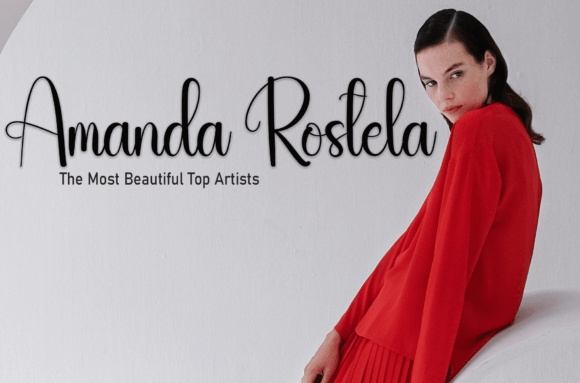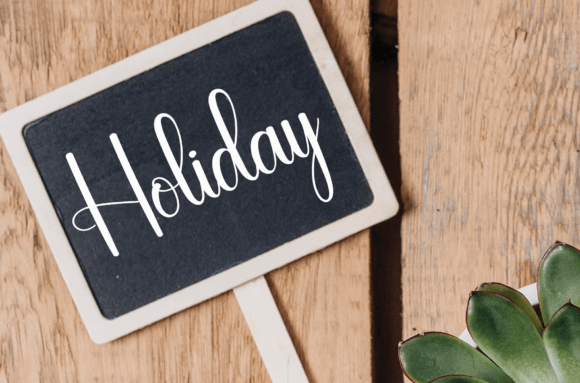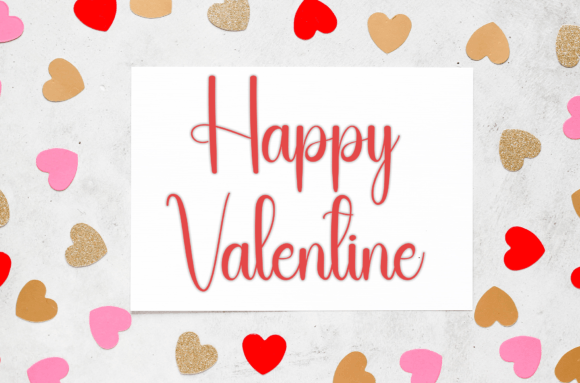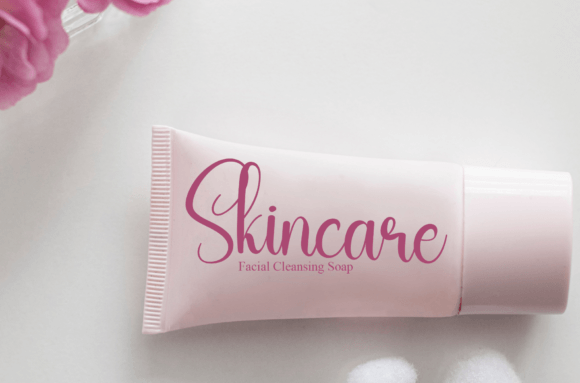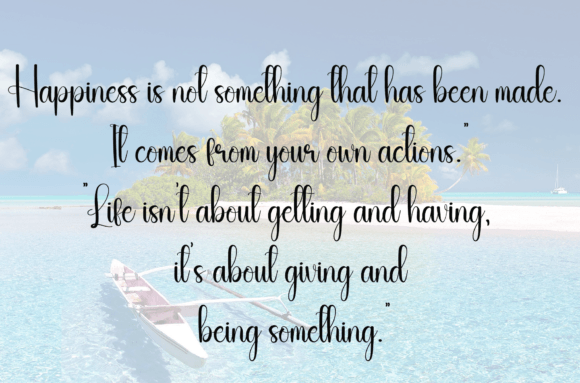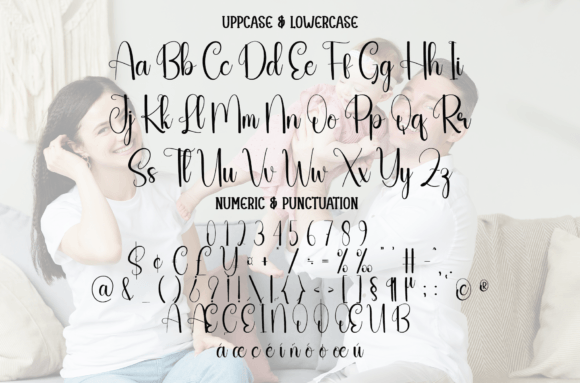
The Joy of Children Day Font: A Designer’s New Best Friend
I still remember the time I was working on a wedding invitation project, and my client asked for a font that was ‘fun, yet elegant.’ I scoured the internet, tried out a dozen fonts, but nothing seemed quite right. That was until I stumbled upon Children Day Font. It was love at first sight! ✨ This sweet and friendly handwritten font has been a game-changer for me, and I’m excited to share my experience with you.
- ✅ Fresh and neat design that’s perfect for a variety of projects
- ✨ A fun and playful vibe that’s sure to delight
- 🎉 Excellent for wedding invitations, cards, and other designs that need a personal touch
- 🖌️ Works beautifully with both digital and print designs
While Children Day Font is an excellent choice, there are a few things to keep in mind: 🤔
- ⚠️ Some characters may not work well at very small font sizes
- ⚠️ Limited availability of stylistic alternates (but what’s available is still impressive!)
The Story Behind Children Day Font
Children Day Font was designed with the intention of creating a fresh and fun handwritten font that’s perfect for a variety of design projects. The designer aimed to create a font that’s both elegant and playful, making it suitable for designs that need a personal touch.
Q: What type of designs is Children Day Font best suited for?
A: Children Day Font is ideal for wedding invitations, cards, and other designs that need a fun and playful touch.